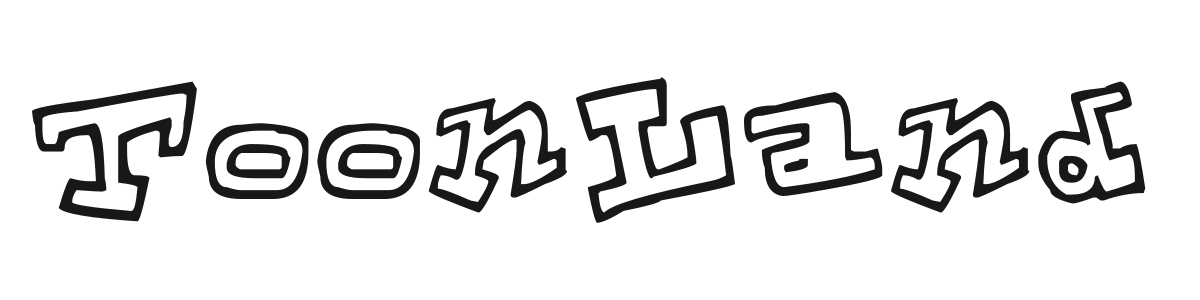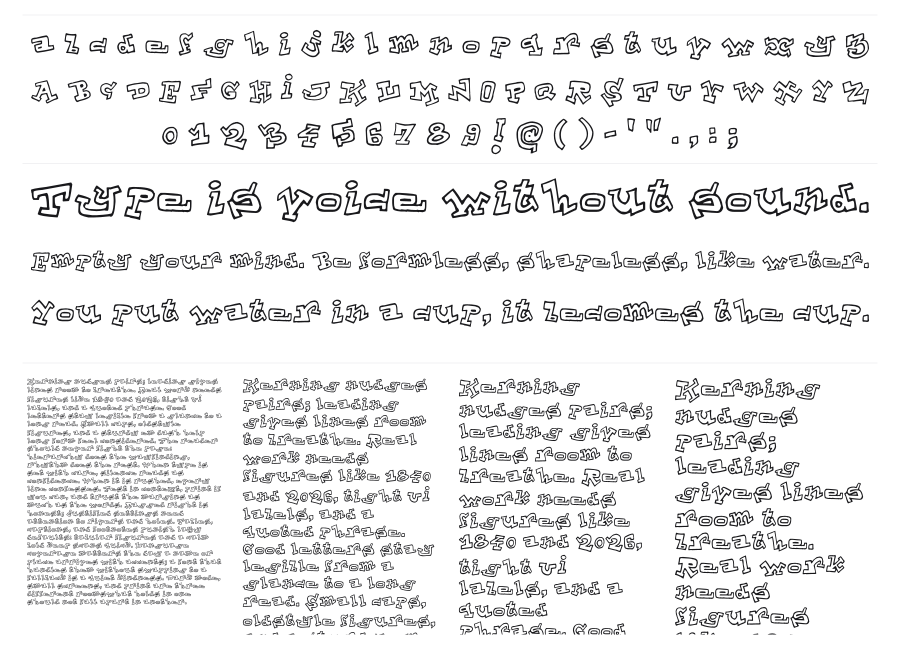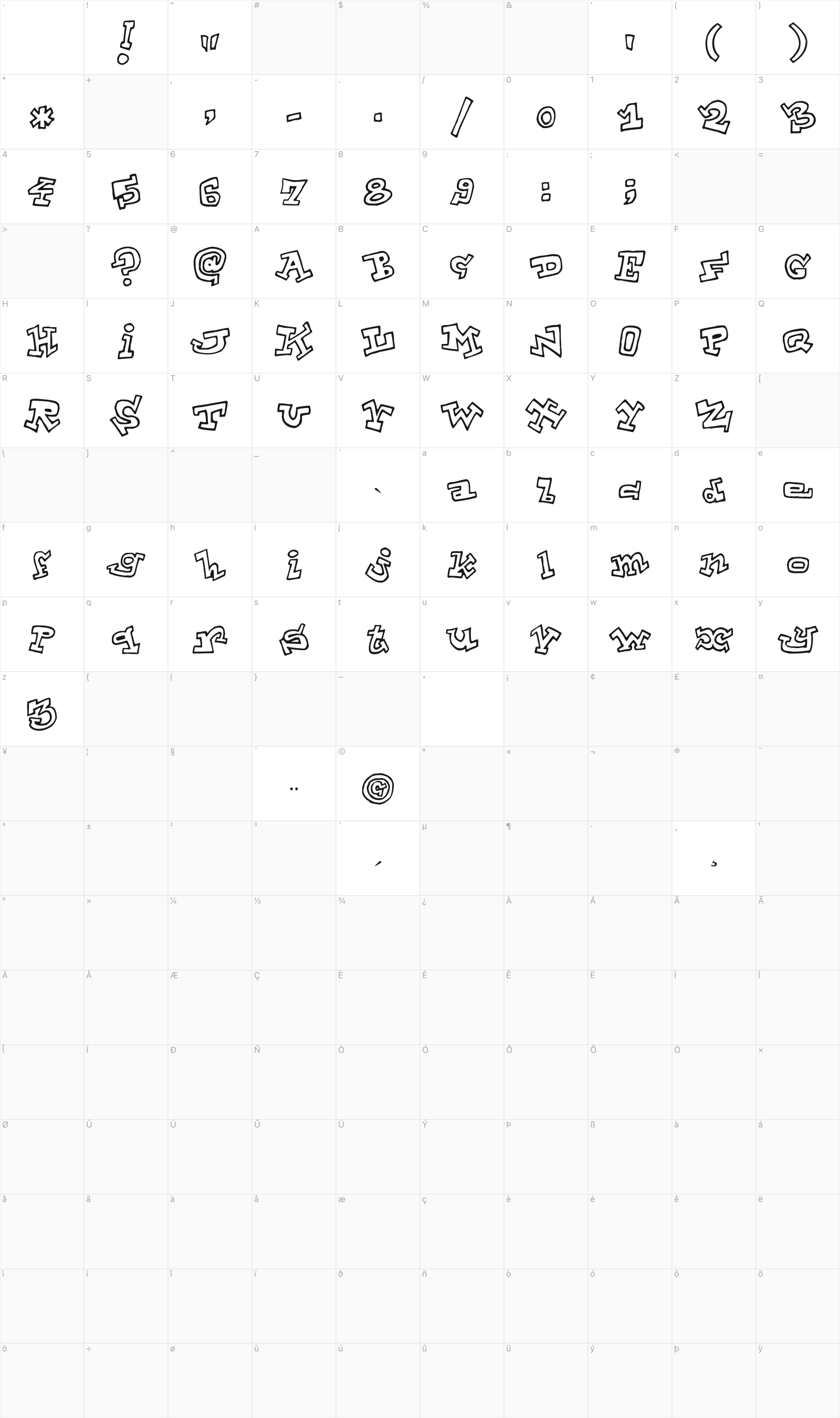
ToonLand
ToonLand is a bold outline cartoon font with chunky, hand-drawn characters that wobble and bounce like frames from an animated series. Each letter is outlined with a thick irregular border, giving it an energetic, comic-book quality. It suits children's media, game titles, and any project that needs personality and a sense of fun.